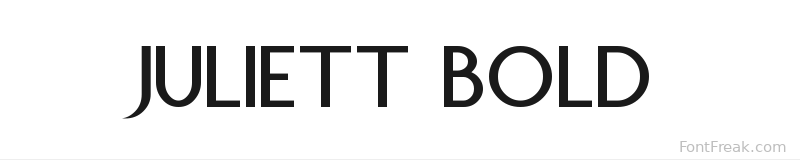
Juliett Bold
About Juliett Bold
Juliett Bold, created by GGBot, is a striking sans-serif font that exudes modern elegance. Released in 2023, this font features a bold, clean aesthetic that is both versatile and contemporary. The stroke weight is consistently thick, providing a strong presence, while the contrast remains subtle, ensuring legibility across various applications. The letterforms are spaciously designed, allowing for easy readability, making it an excellent choice for both digital and print mediums.
This font shines in several specific use cases. It is ideal for eye-catching wedding invitations, where its bold appearance can convey a sense of sophistication and celebration. Additionally, Juliett Bold is perfect for movie posters, where the need for immediate visual impact is crucial. Restaurant menus can benefit from this font as it stands out in printed materials, drawing attention to the offerings. Furthermore, it can be effectively used in branding for small businesses, providing a professional look that communicates reliability and modernity.
The target audience for Juliett Bold includes graphic designers, small business owners, and content creators who seek a font that combines style with functionality. Its robust design allows for creative flexibility, making it suitable for various projects from marketing materials to social media graphics.
What sets Juliett Bold apart is its ability to maintain clarity and impact without compromising on aesthetics. This font not only meets the demands of contemporary design but also offers a unique flair that can elevate any project. For those interested in enhancing their creative toolkit, the Juliett Bold font free download provides an accessible option that promises to enhance visual communication with its engaging style and modern appeal.
Author GGBot